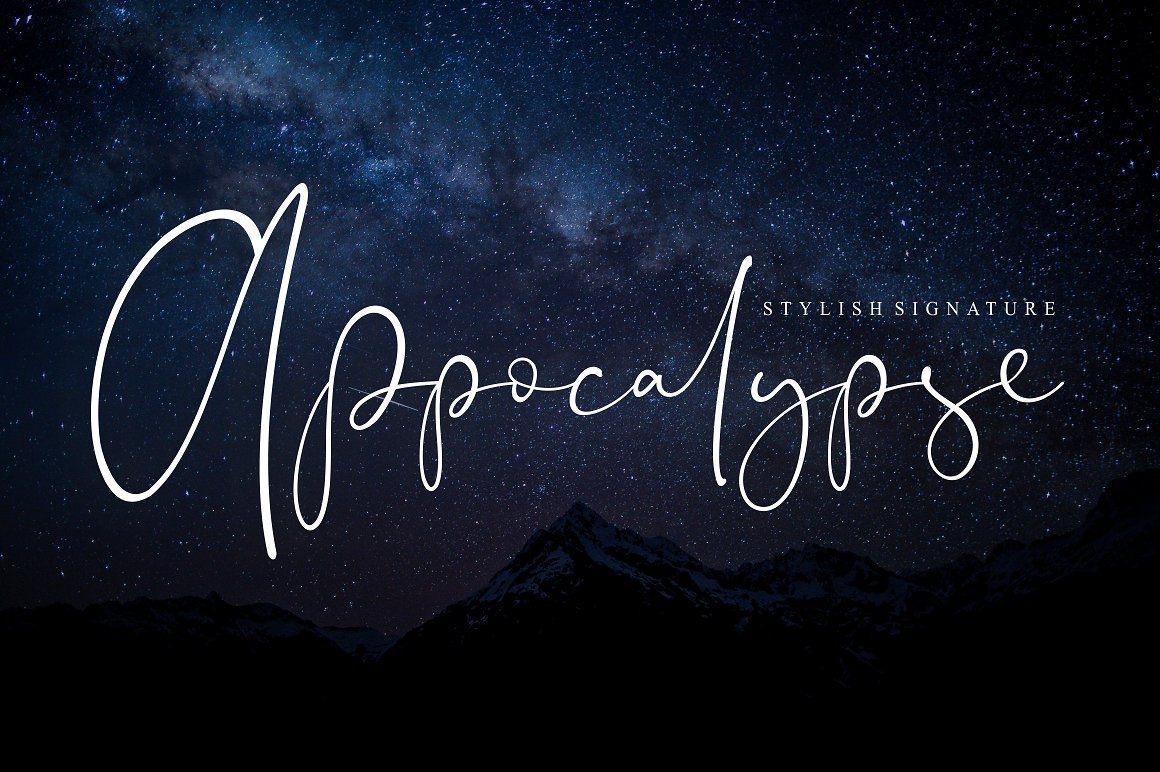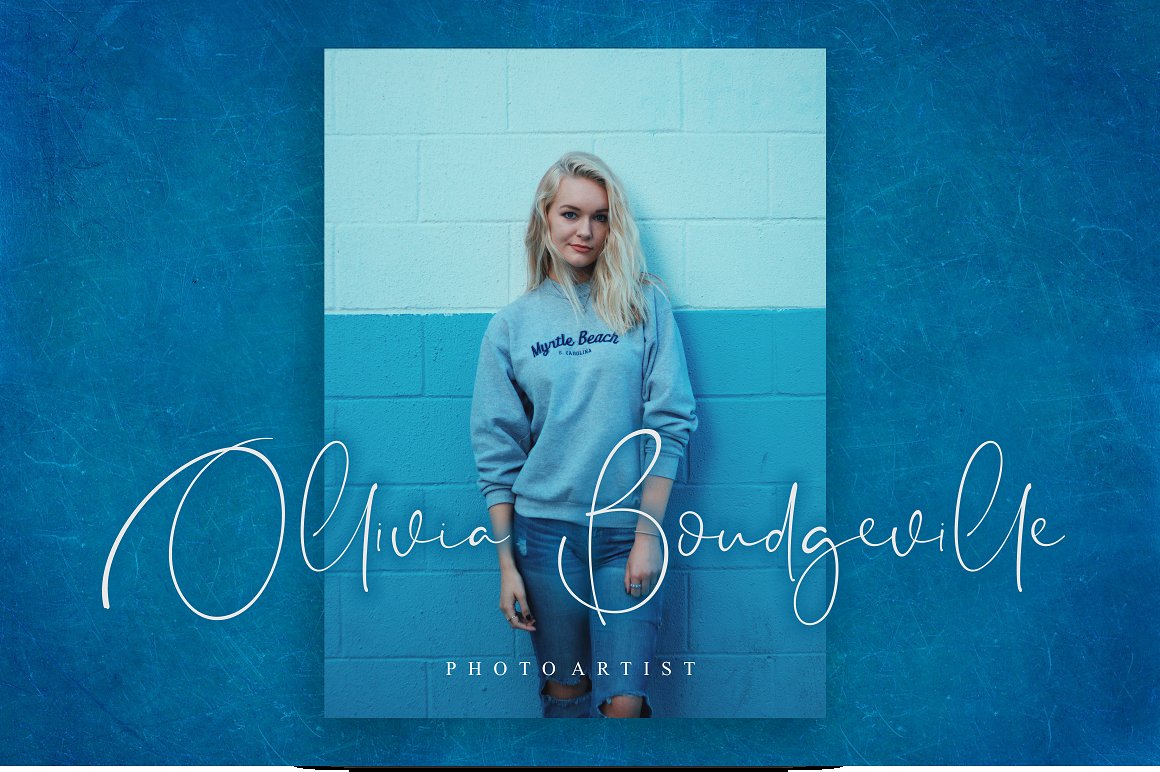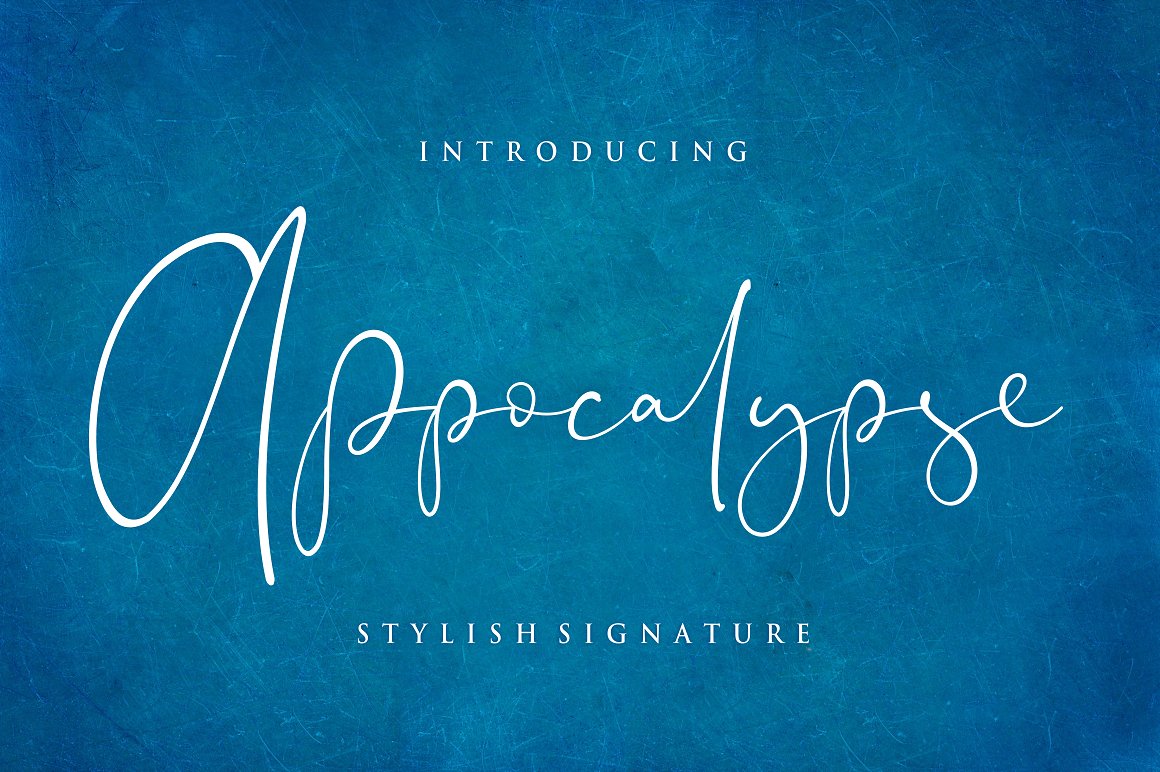
Appocalypse Signature Font
This is new signature font with beauty and natural handwritten curve. Introducing Appocalypse Font. Appocalypse is a simple and classy signature font, comes with lowercase alternates and 53 ligatures to keep this font looks elegant, classy, readable, stylish, catchy and easy to use. Appocalypse is the great choice for watermark on photography, signature or signature logo design, quotes, album cover, business card, and many other design project.